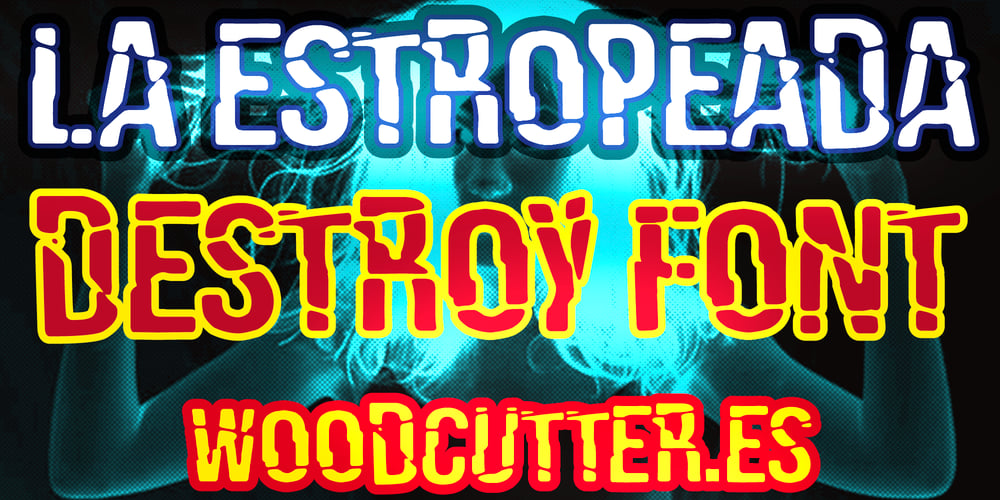
La Estropeada Font Family was designed by Jordi Manero and published by Woodcutter. La Estropeada contains 1 styles and family package options. “La Estropeada” is a font completely shattered and broken, as if it had exploded into a thousand pieces. Each uppercase letter is designed with irregular fragments that scatter, creating a visual effect of chaos and destruction. Ideal for designs aiming to convey a sense of violence, disorder, or extreme impact. Perfect for action movie posters, video games, and any project requiring a touch of drama and overflowing energy.